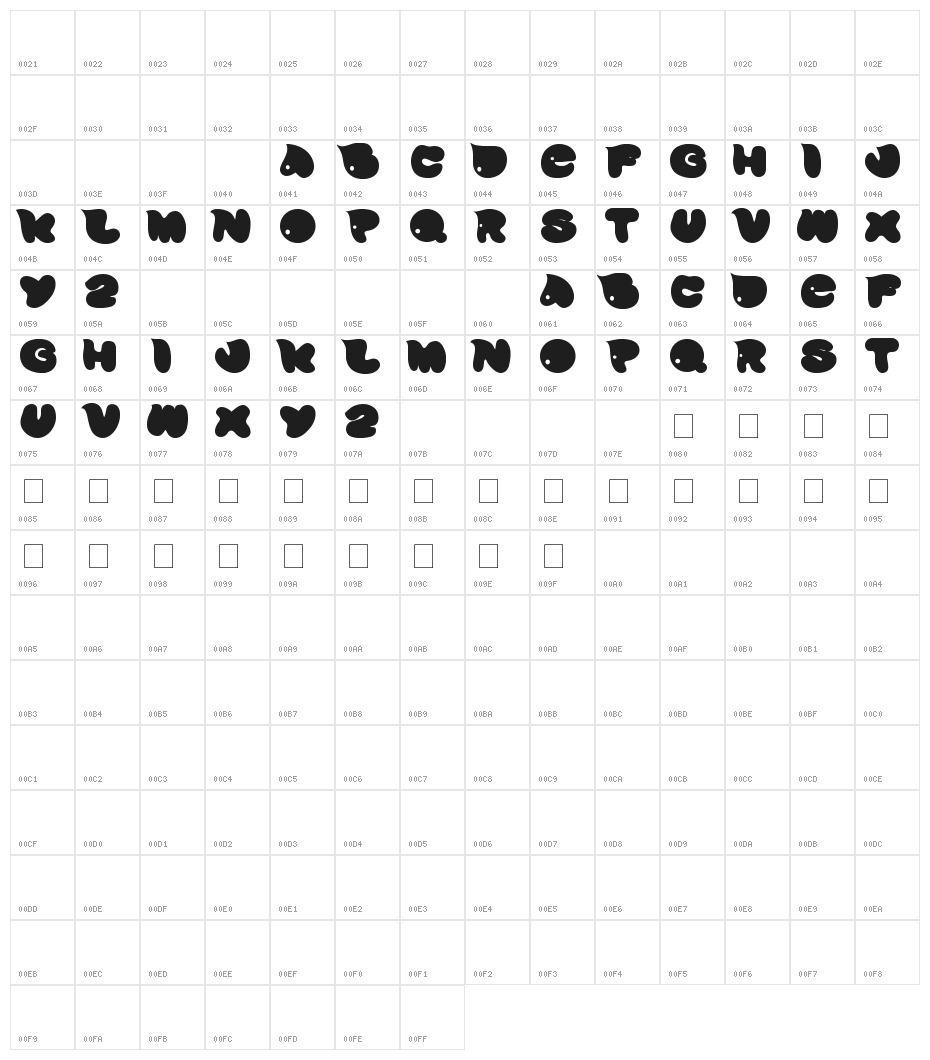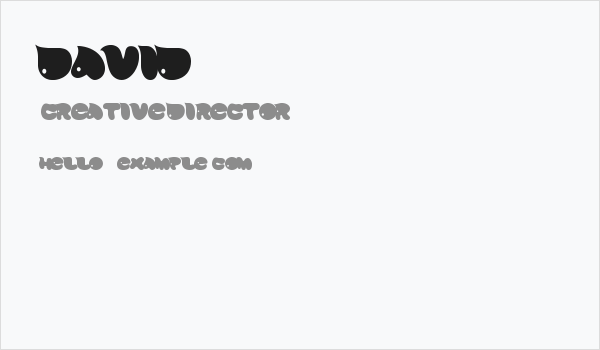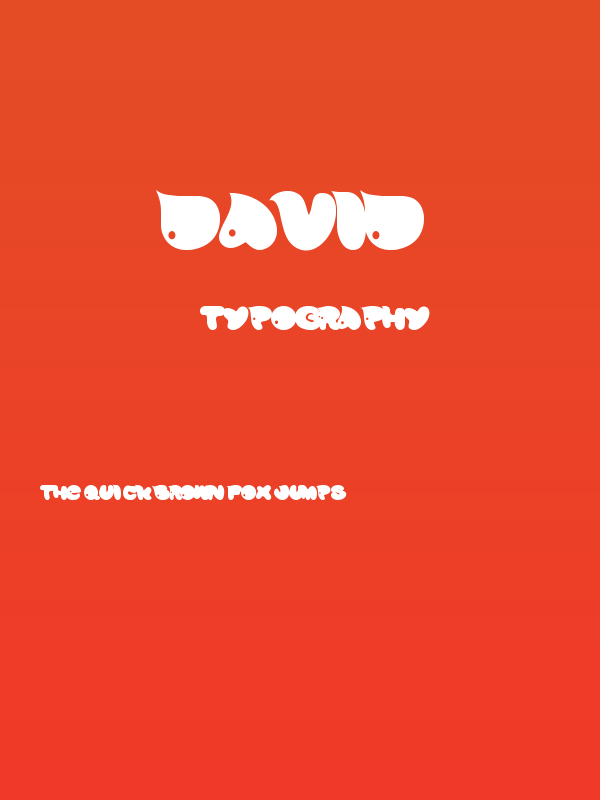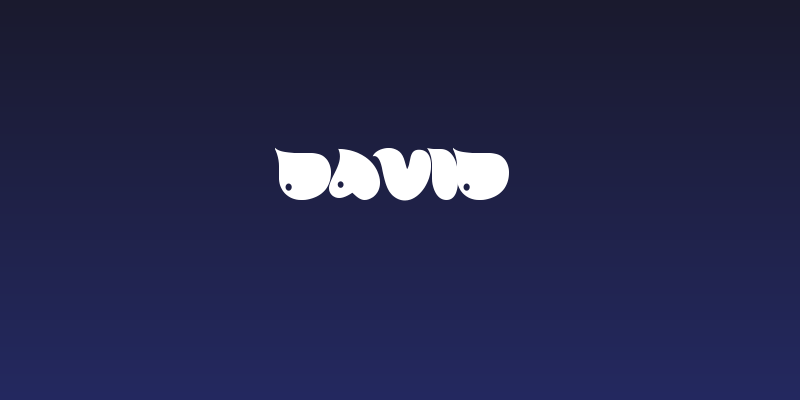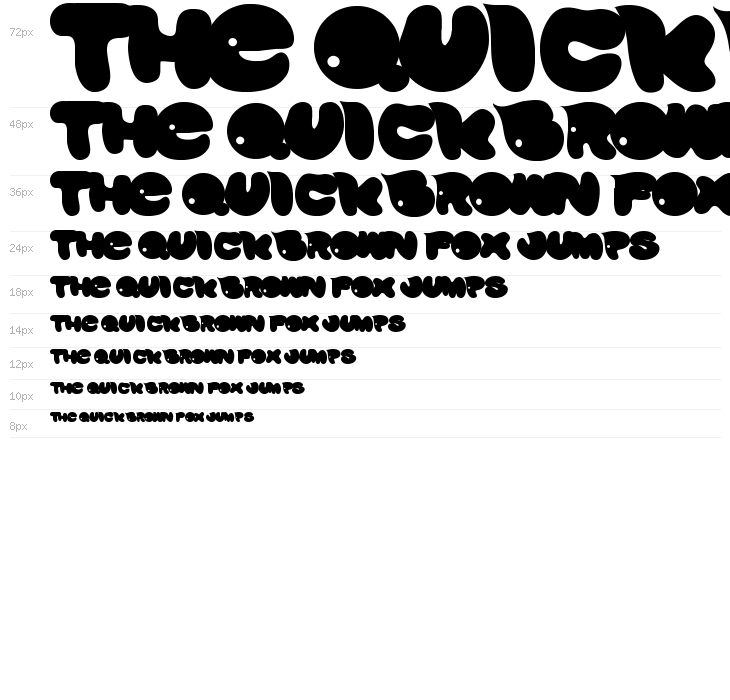
david Font
david Description
This font features a playful and bold design with a unique, bubbly appearance. Each character is crafted with rounded edges and a thick, substantial weight, giving it a whimsical and cartoonish feel. The letters are closely spaced, enhancing the cohesive look of the text. The font's style is reminiscent of playful, childlike themes, making it ideal for projects that require a fun and engaging aesthetic. Its boldness ensures high visibility and impact, making it suitable for eye-catching designs.
| Overall Style | Playful, Cartoonish |
| Proposed Projects | Ideal for children's book covers, playful branding, party invitations, and fun posters. |